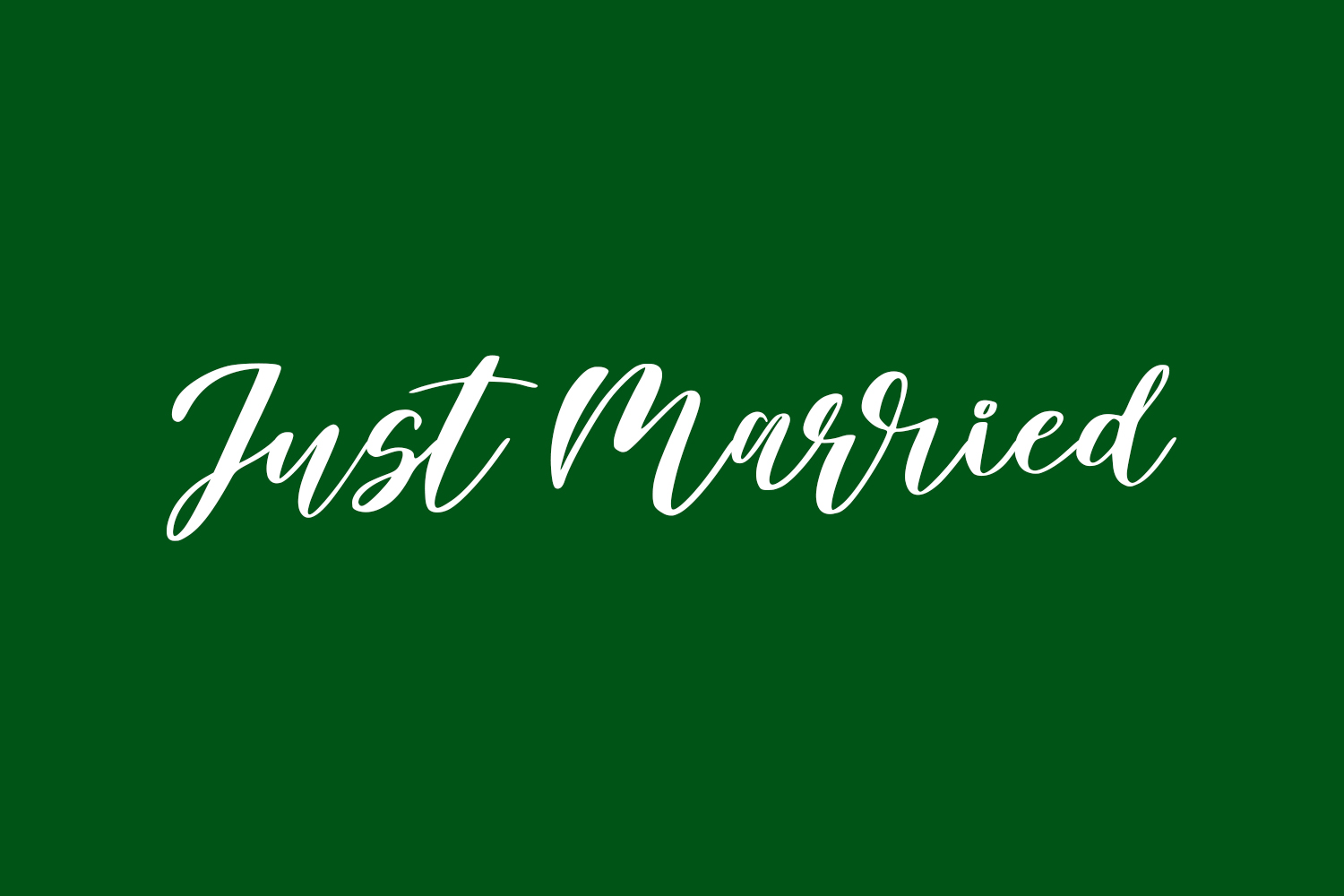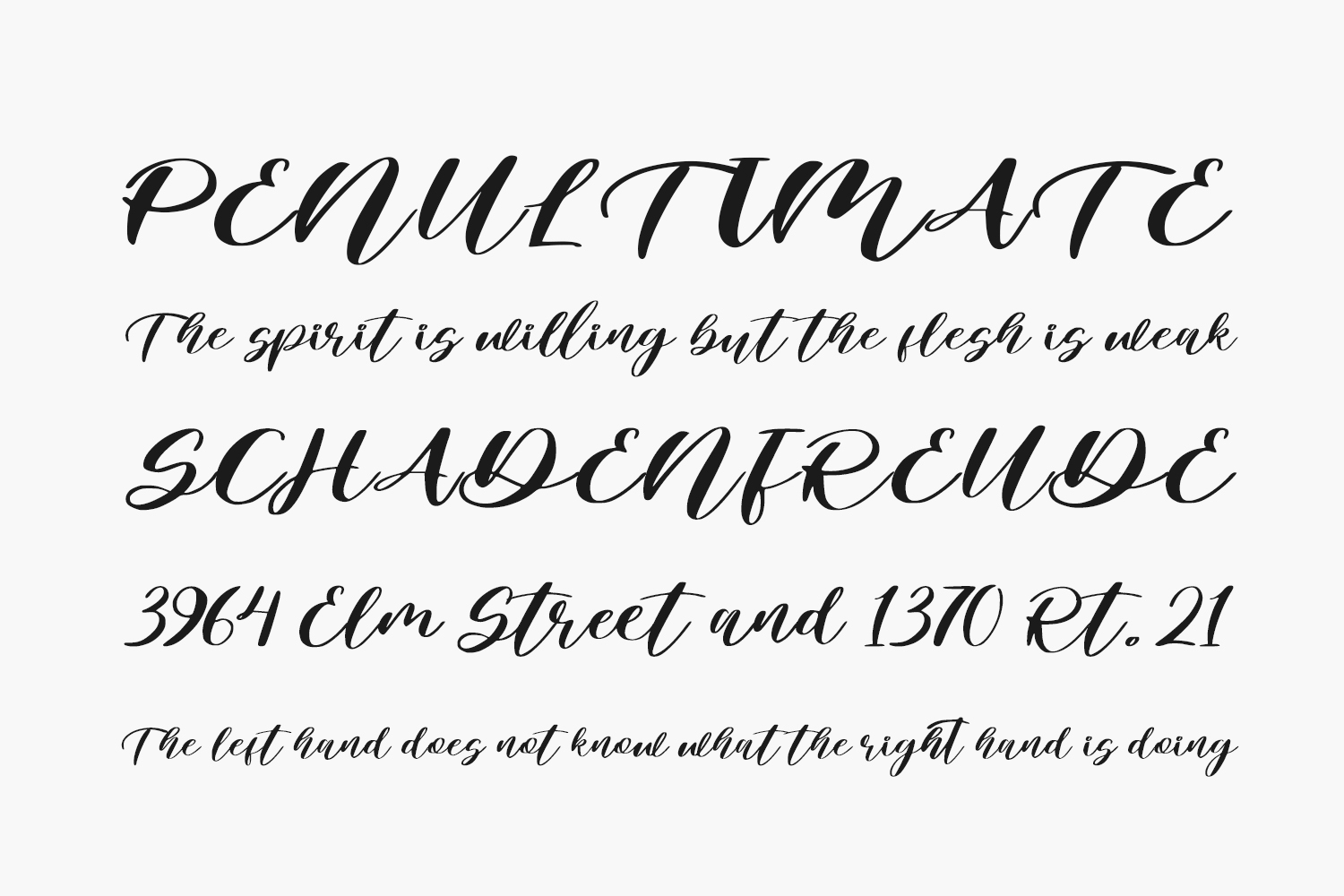
Just Married Free Font is a trendy paint-brushed script font. It can easily be matched to an incredibly large set of projects, so add it to your creative ideas and notice how it makes them stand out. Just Married Free Font is free for personal use only. Please purchase the full version for commercial use.